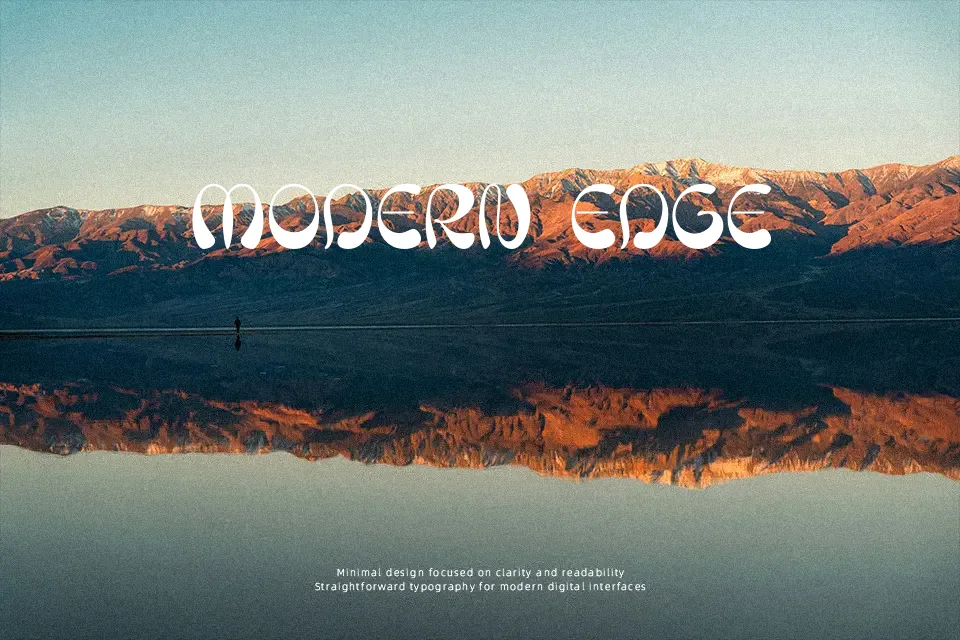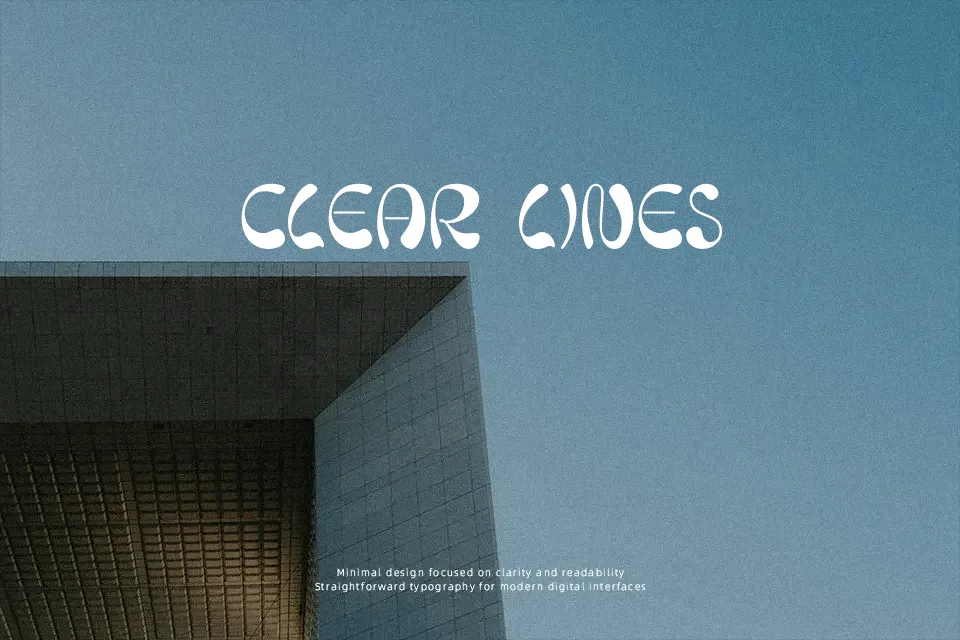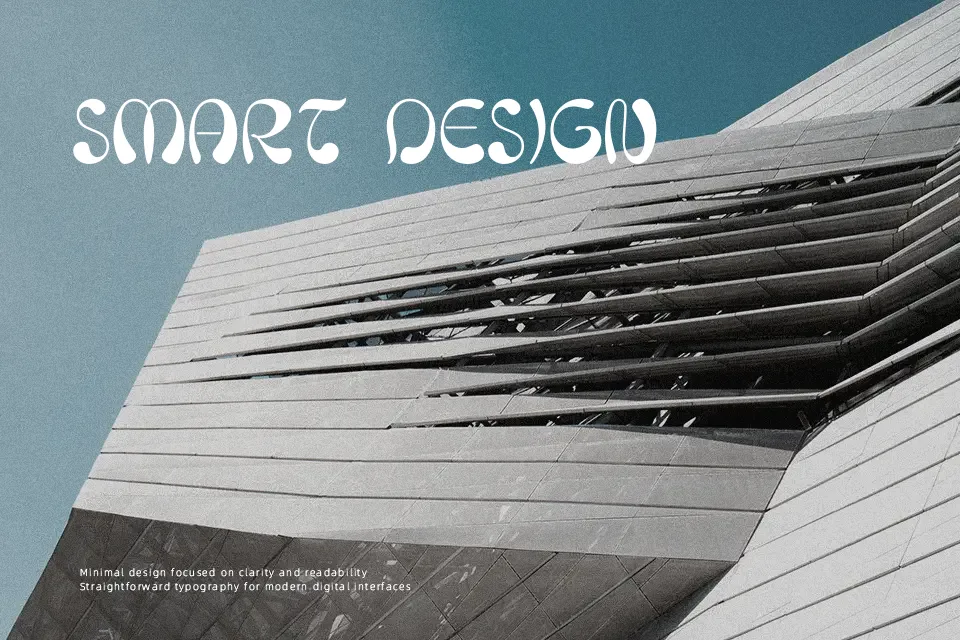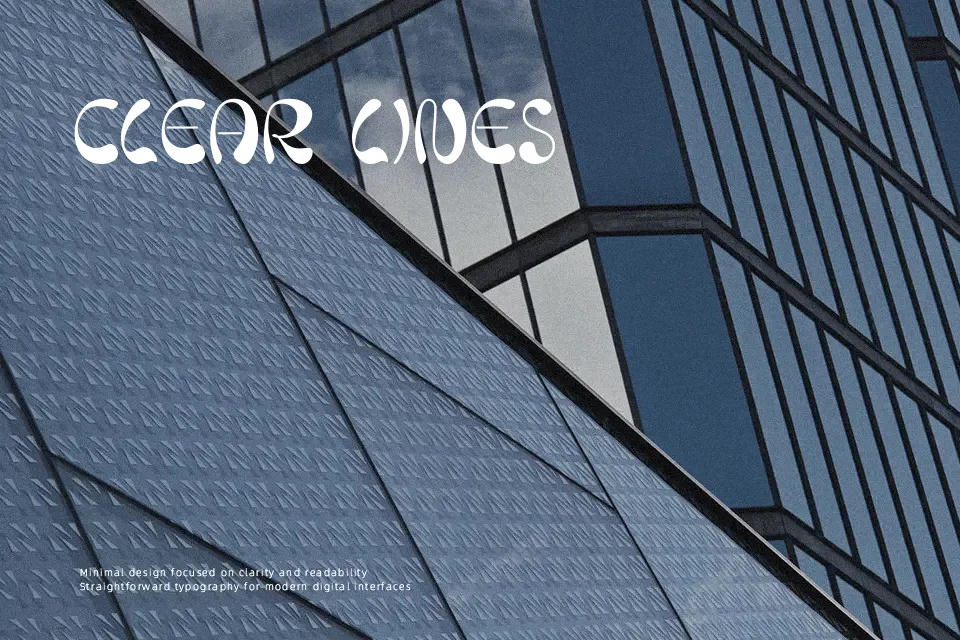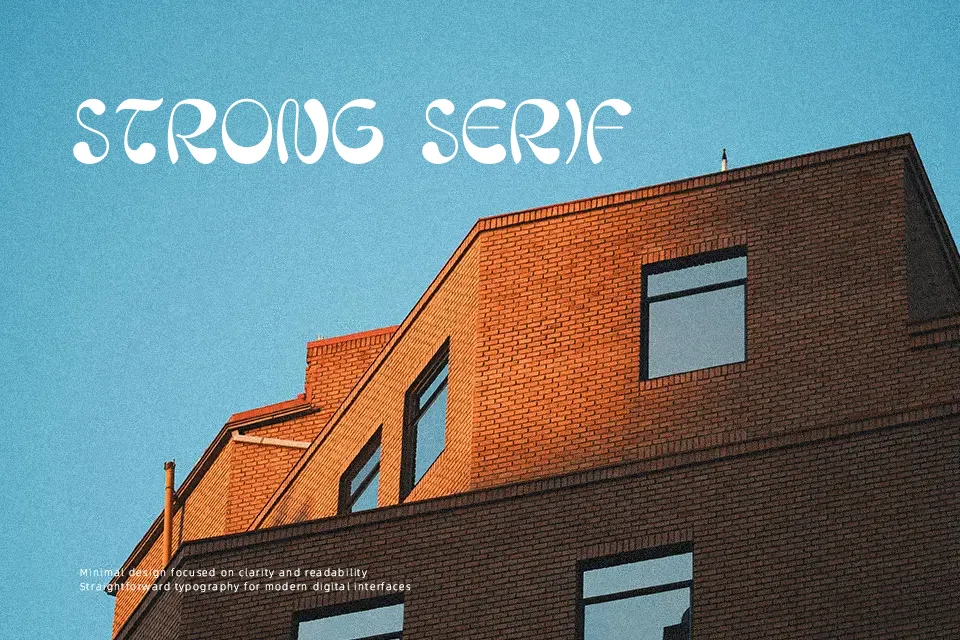
Niaisage Font
Niaisage presents a set of stylized display letterforms with thick strokes and pronounced curves that create a lively retro impression in short text. The characters show relatively consistent proportions, and the spacing feels compact yet readable when used at larger sizes, making the design suitable for headlines and short slogans. Stroke weights appear even across the visible glyphs, with rounded details that reinforce its playful, decorative feel. These traits keep the letterforms clear in posters or packaging, but the dense structure becomes less comfortable in extended reading or very small captions. Overall, the typeface rewards use where impact matters more than continuous legibility.
retro poster headlines
festival or event titles
short product labels
packaging wordmarks
technical documentation
Perfect for gaming, headline, and packaging, with a bold and decorative style.